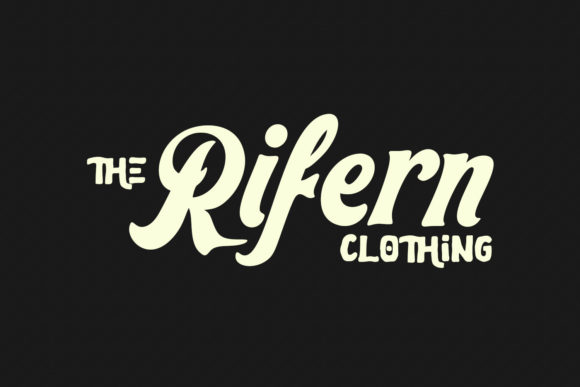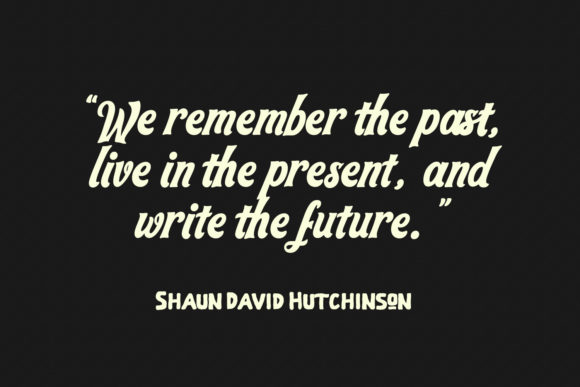
Goldluck Font
db-ku.com - Script & Handwritten -- Goldluck is a 70’s retro duo font (script and display). It features bold slant strokes, fun characters, ligatures and alternates. No matter the topic, this font will be an incredible asset to your fonts’ library, as it has the potential to elevate any creation.